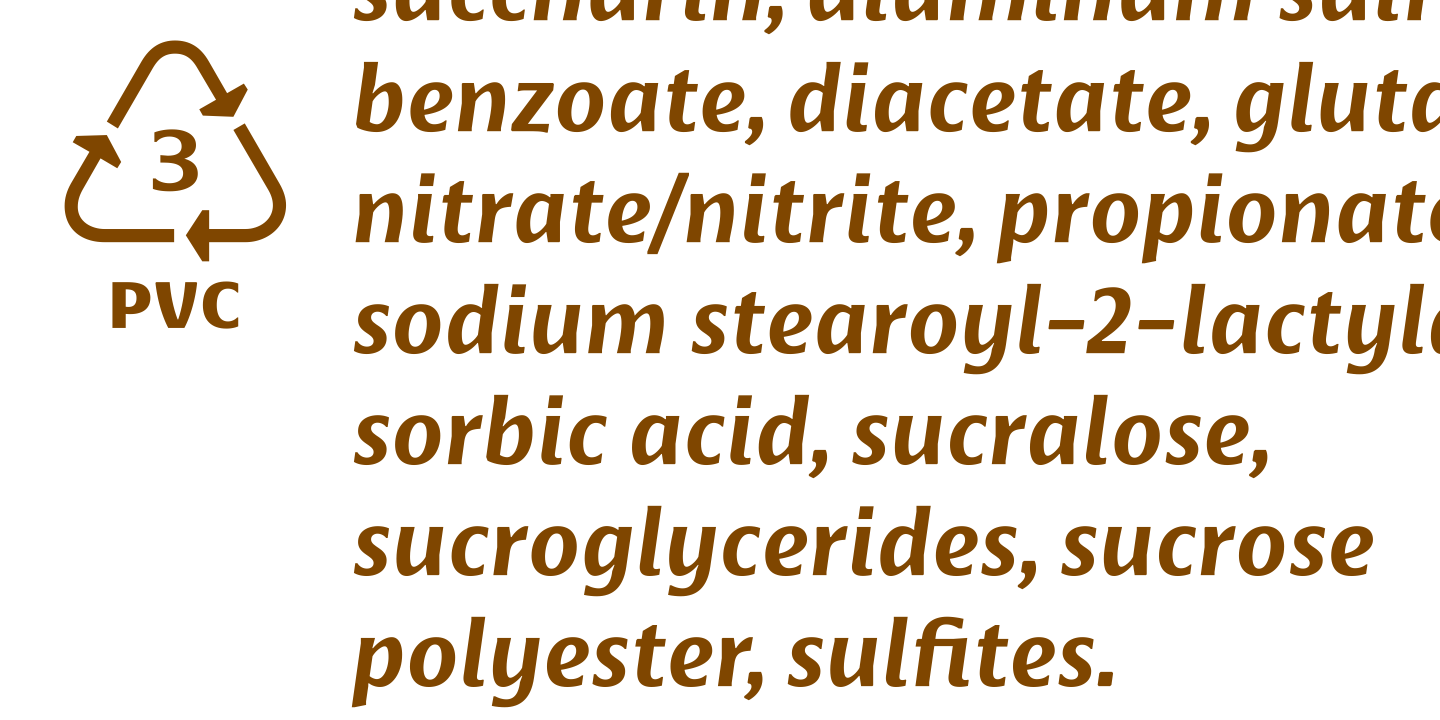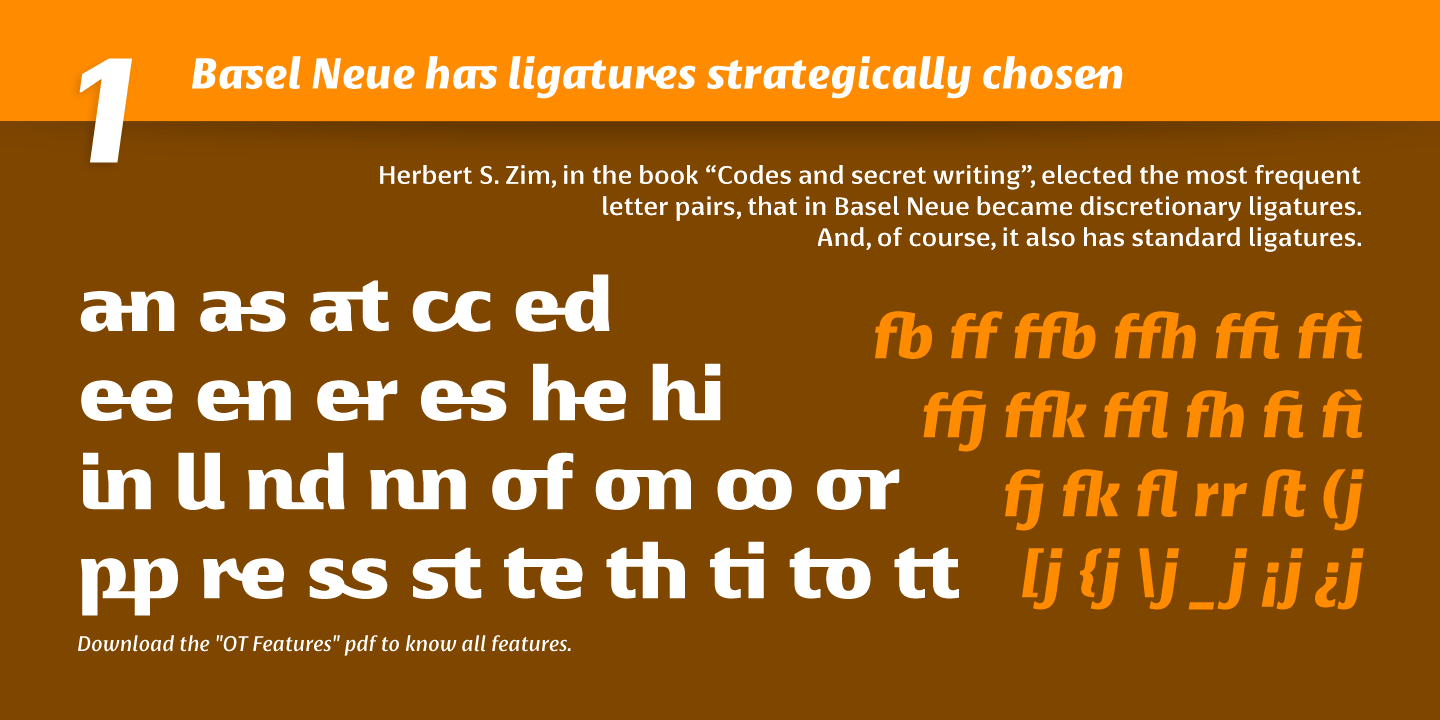
About Basel Neue
Basel Neue is the complete redesign of BaselSans ITD font, the first typeface of Isaco Type foundry, launched in 2009. As with the predecessor version, Basel Neue is a legible and discrete typeface, a sans serif with thickness variation and humanistic…